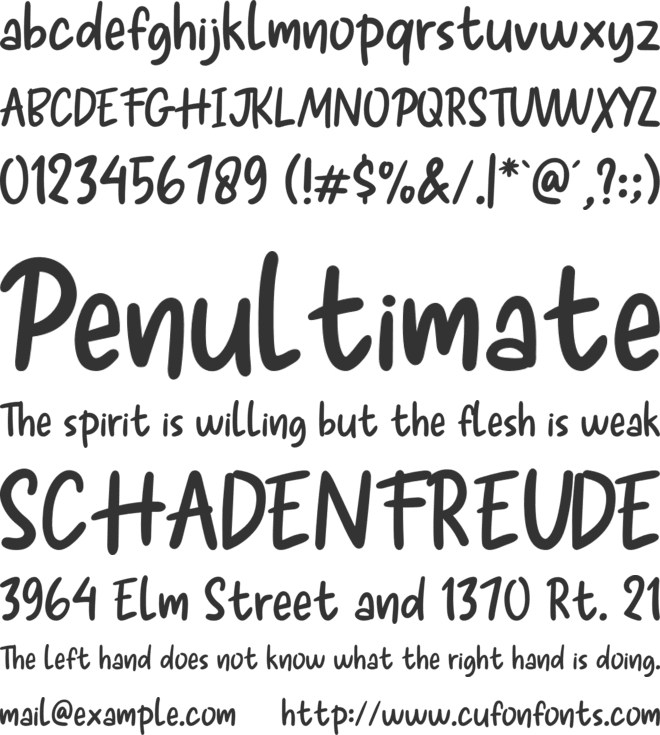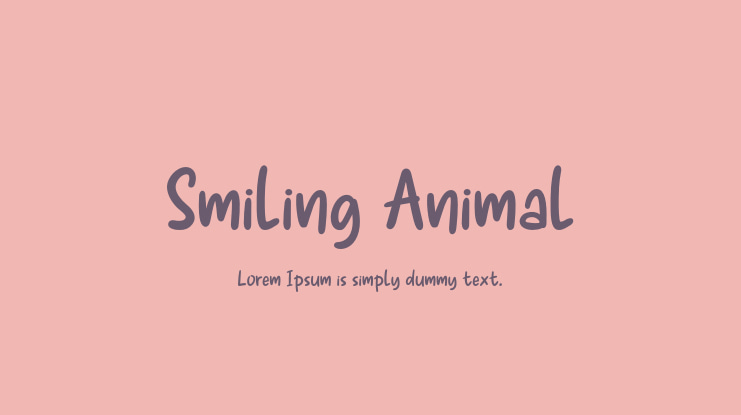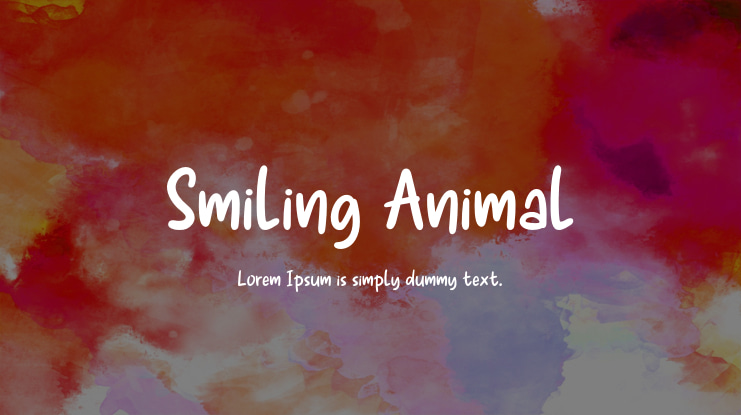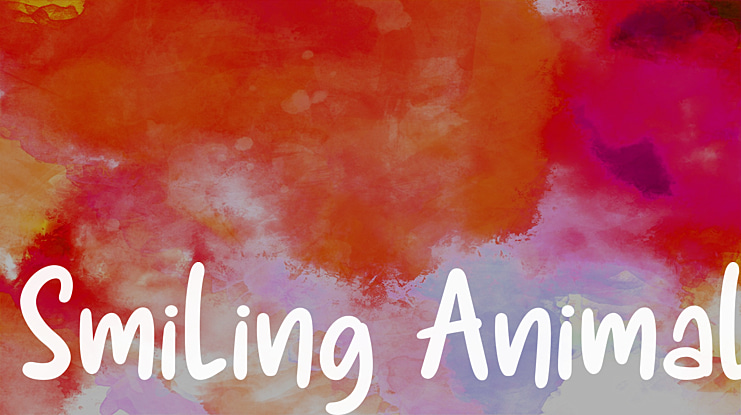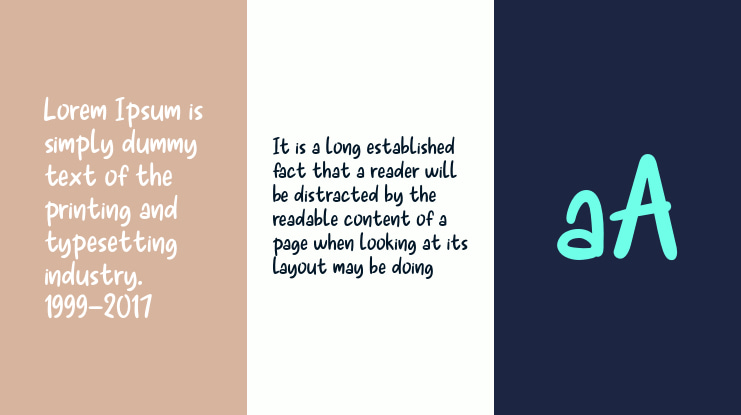
Smiling Animal Font
Introducing Smilling Animal by Tlatoustype
A fancy and elegant handcrafted font that create to impress your audience and make your branding shine.
Make your projects dance with this elegant and wonderful font wherever you use it. Use it for your
headings, logos, ads, printed quotes, packaging, and even your website or social media branding.